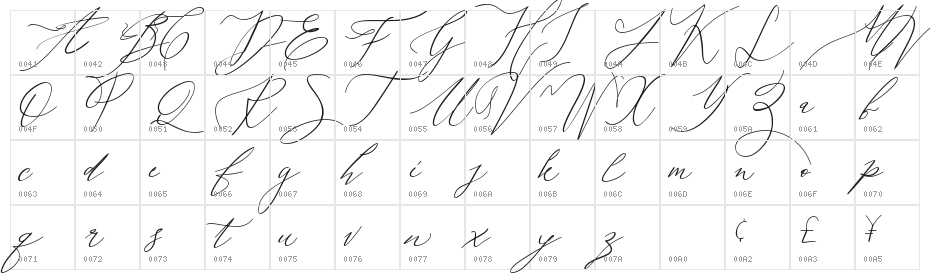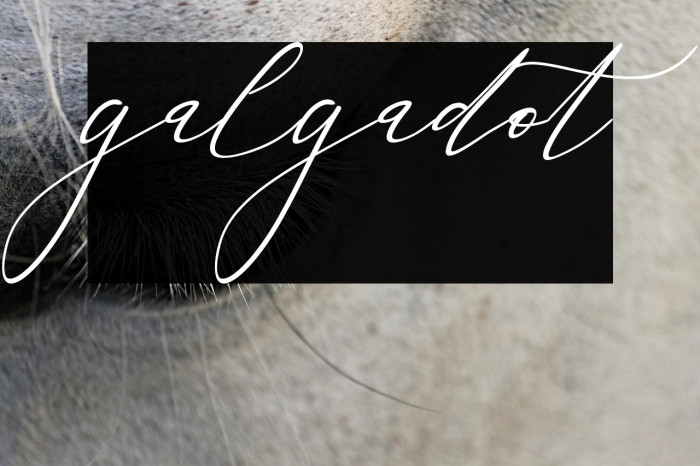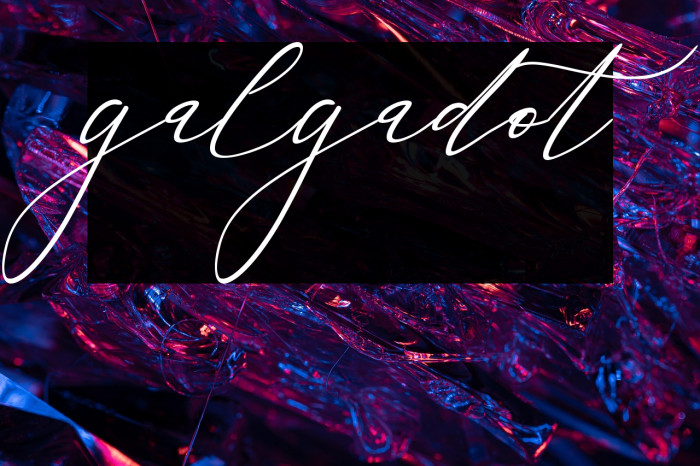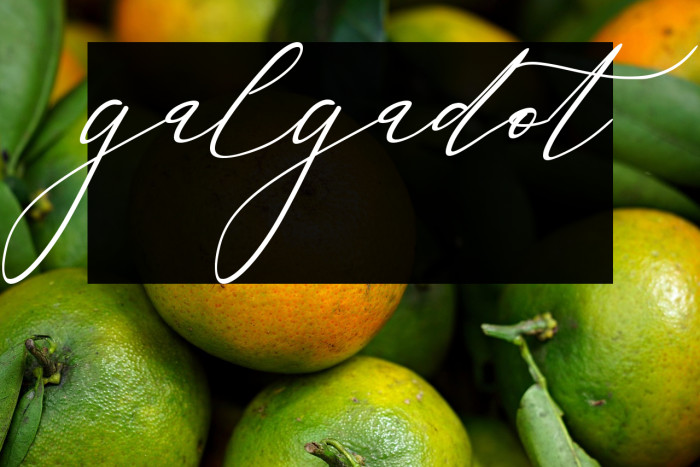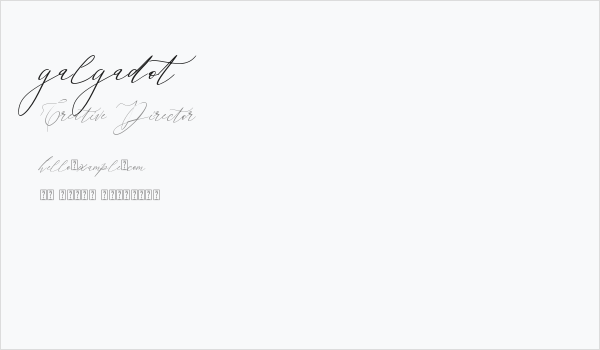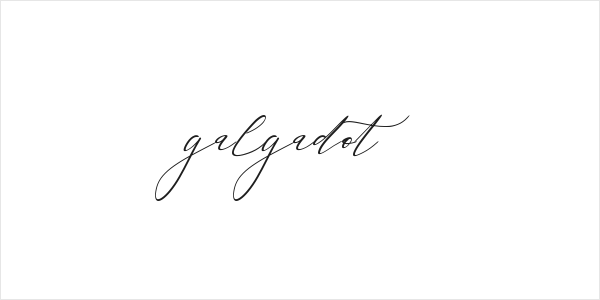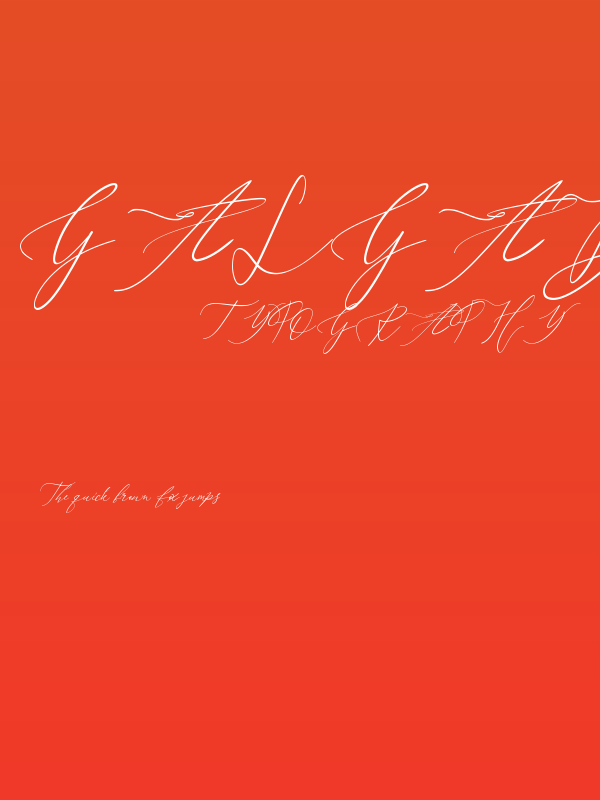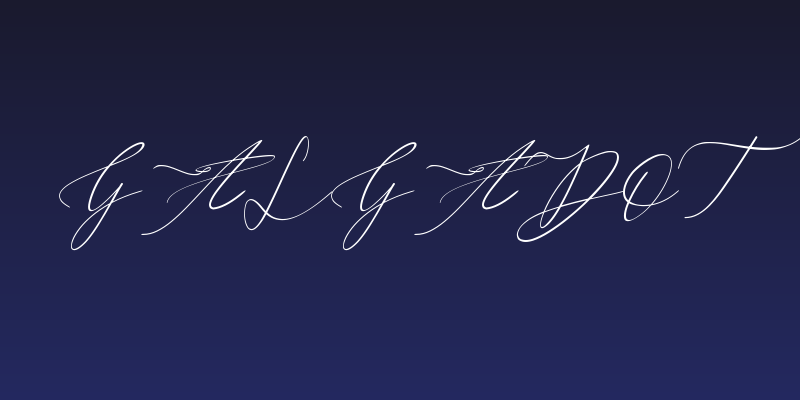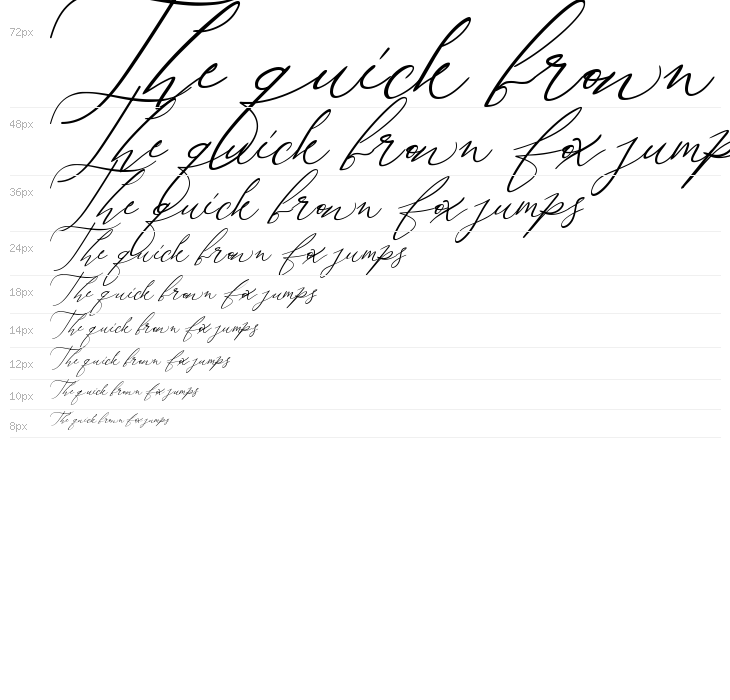
galgadot Font
galgadot Description
This font features an elegant and flowing script style, characterized by its graceful curves and loops. The uppercase letters are intricately designed with delicate strokes, giving them a sophisticated and airy appearance. The lowercase letters maintain a consistent fluidity, with some characters extending below the baseline, adding to the font's dynamic nature. The numerals and special characters are crafted with the same attention to detail, ensuring a cohesive look throughout. This font's overall aesthetic is both refined and artistic, making it suitable for a variety of creative applications.
| Proposed Projects | Ideal for wedding invitations, elegant branding, personal stationery, and artistic projects. |